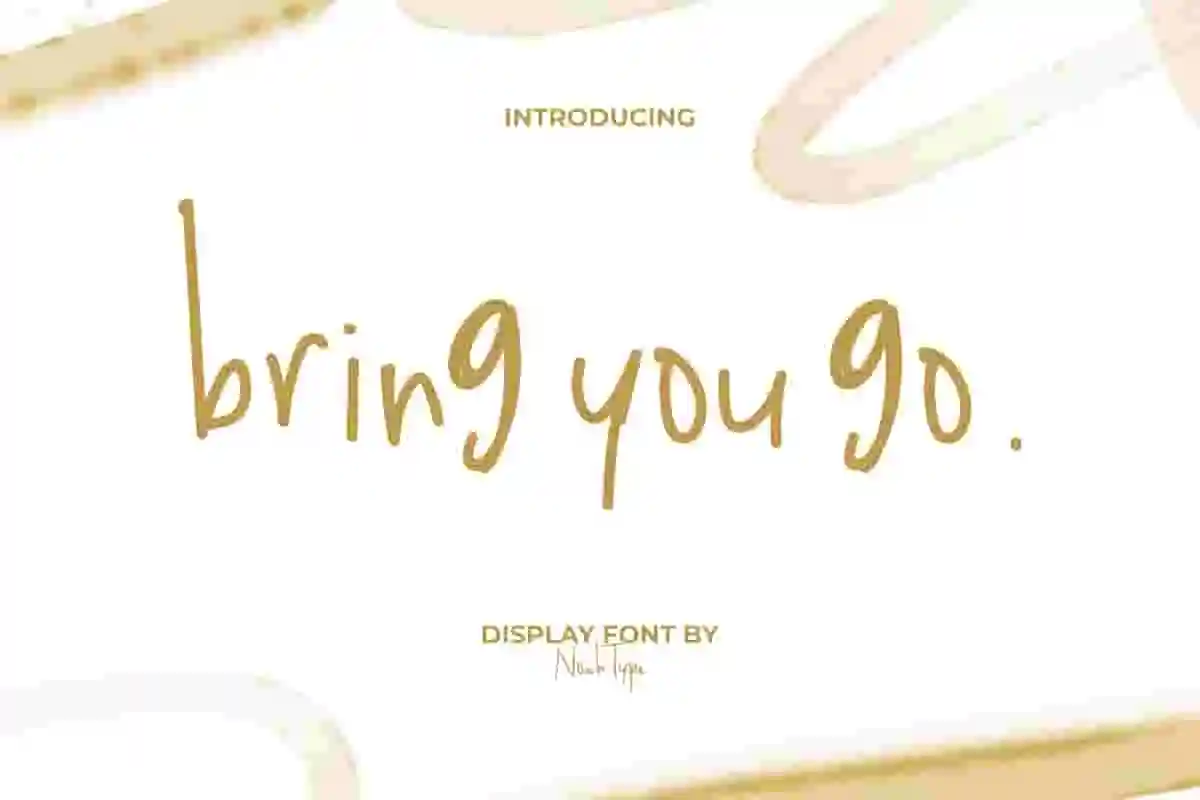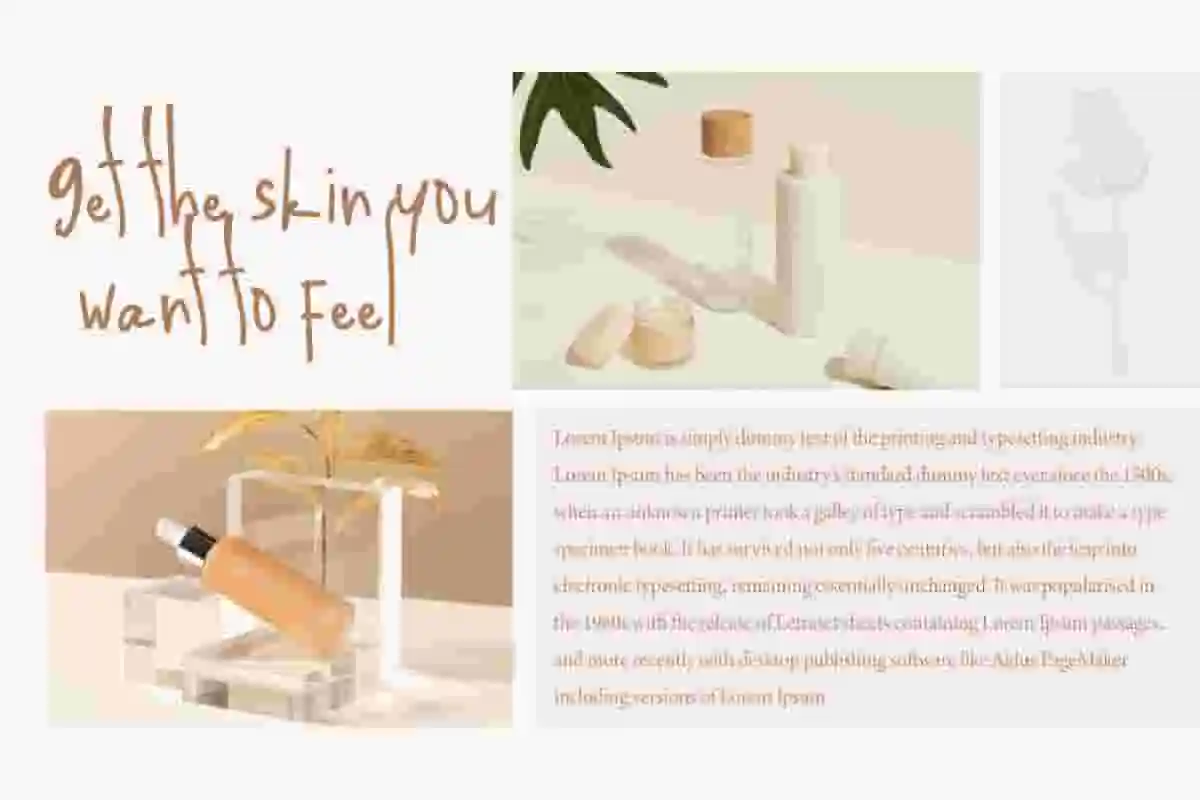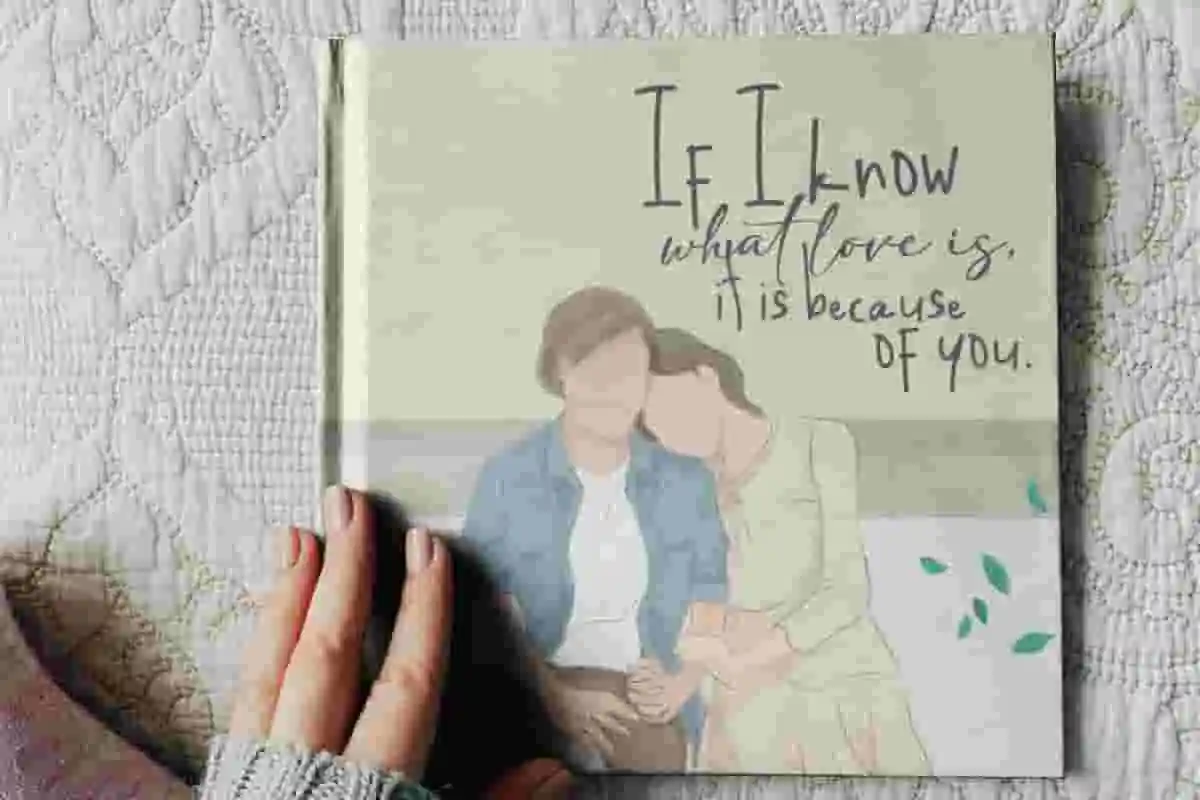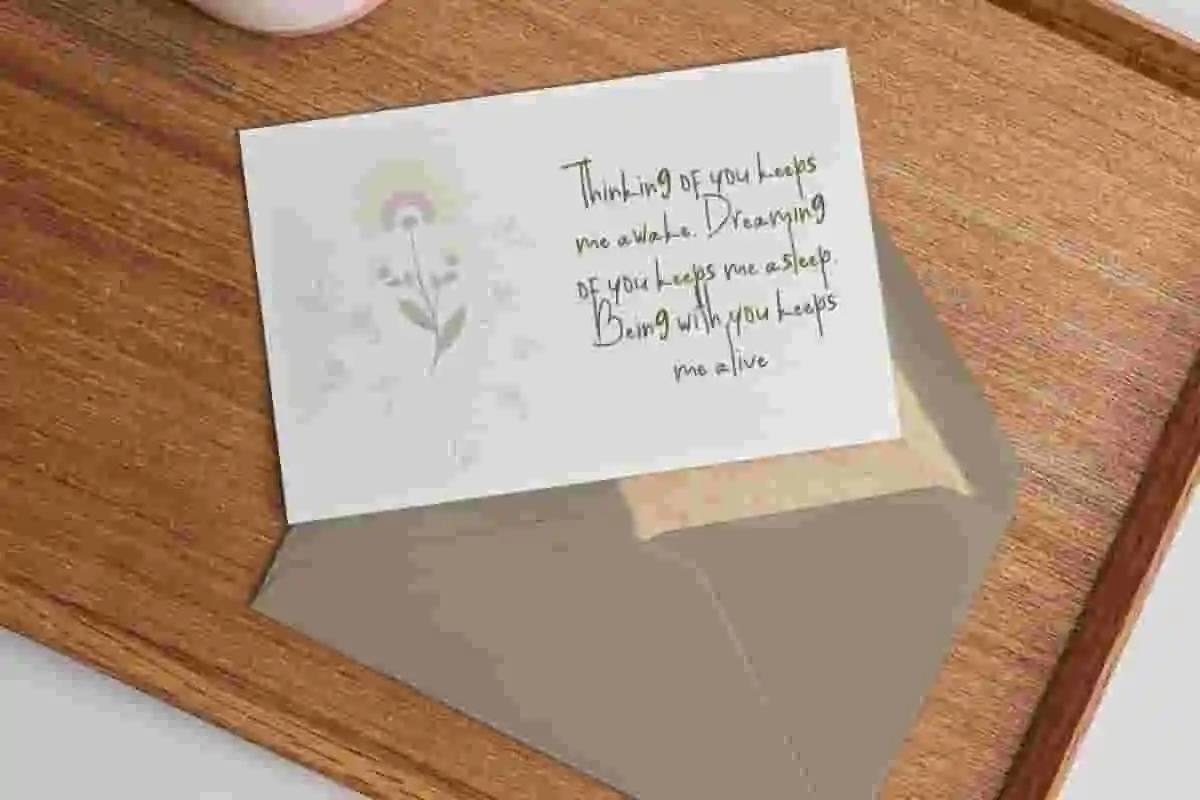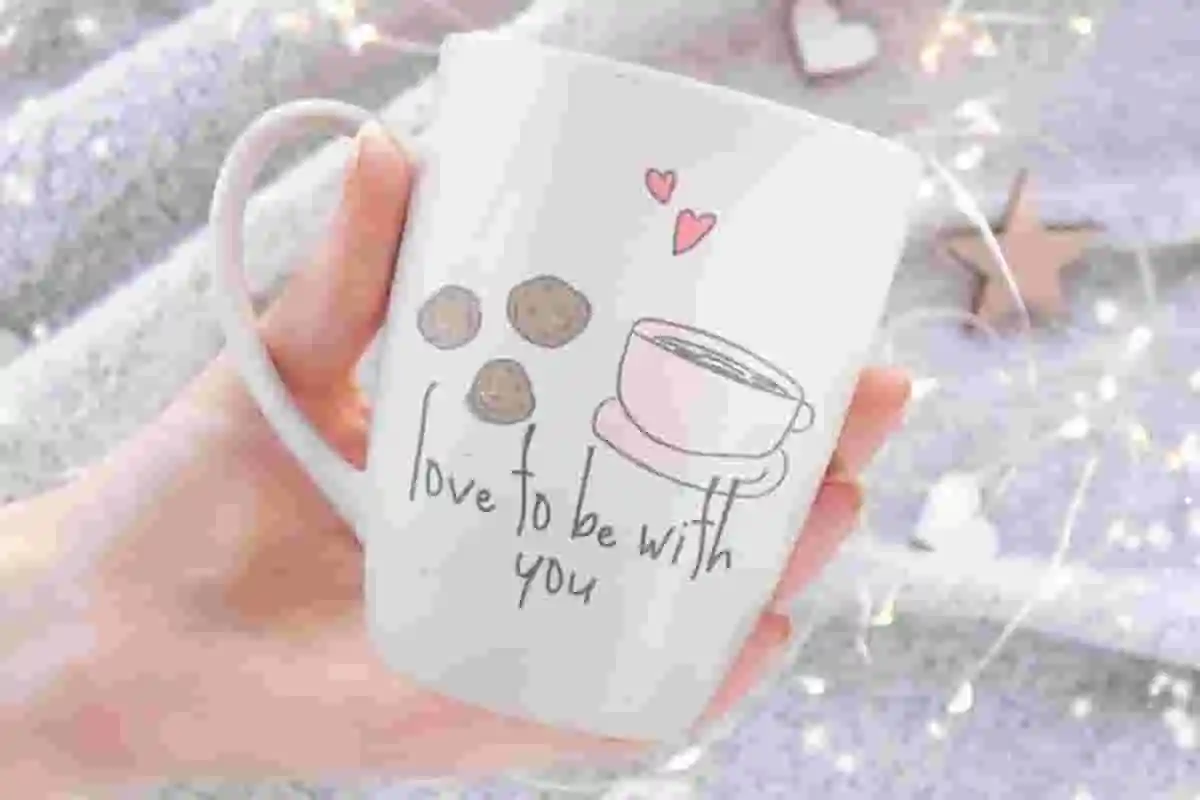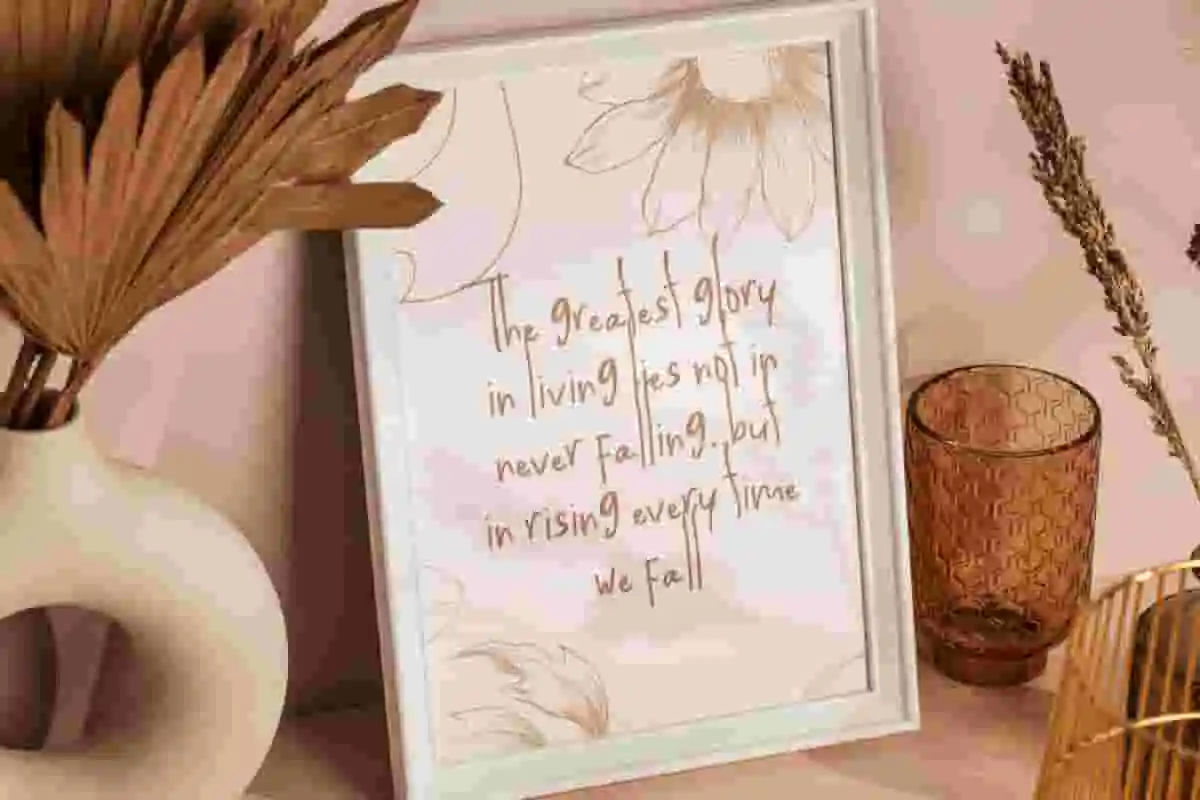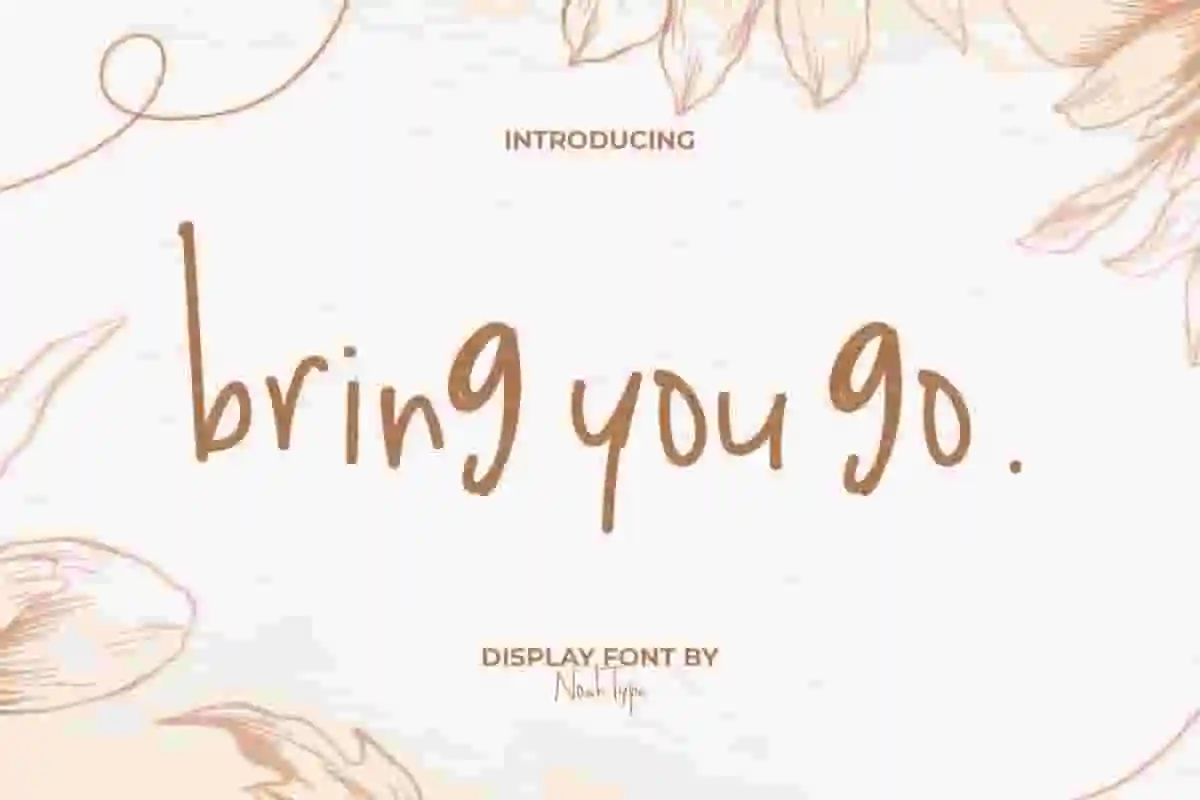
Bring You Go Font is an aesthetic natural display font by NoahType. The appearance of this font is like a child’s scribbles, so it has unique and interesting characteristics. It will be good for any designs, such as brand image, custom design, cover, invitation, label, marketing material, menu, poster, product packaging, quotes, signage, web, and many more!
Bring You Go Font includes a complete set of Uppercase and Lowercase Basic Characters, Numerals, Punctuation, and Symbol. The characters of this font will give adorable look and also a perfect choice for many industries, such as comic, cartoon, accessories, advertising, cafe, event or festival, fashion, game, movie, printing, publishing, etc.